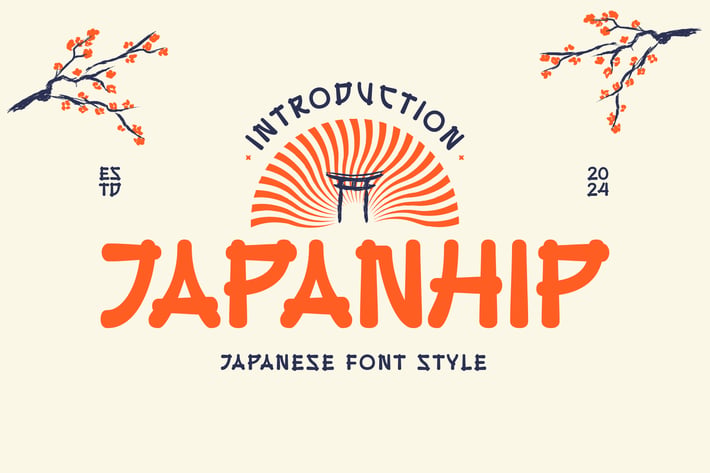
Japanhip - Japan Food Font
Bring the spirit of Japan to your designs with this uniquely crafted font. Inspired by traditional Japanese calligraphy and modern minimalism, this typeface is perfect for projects seeking a clean yet cultural aesthetic.